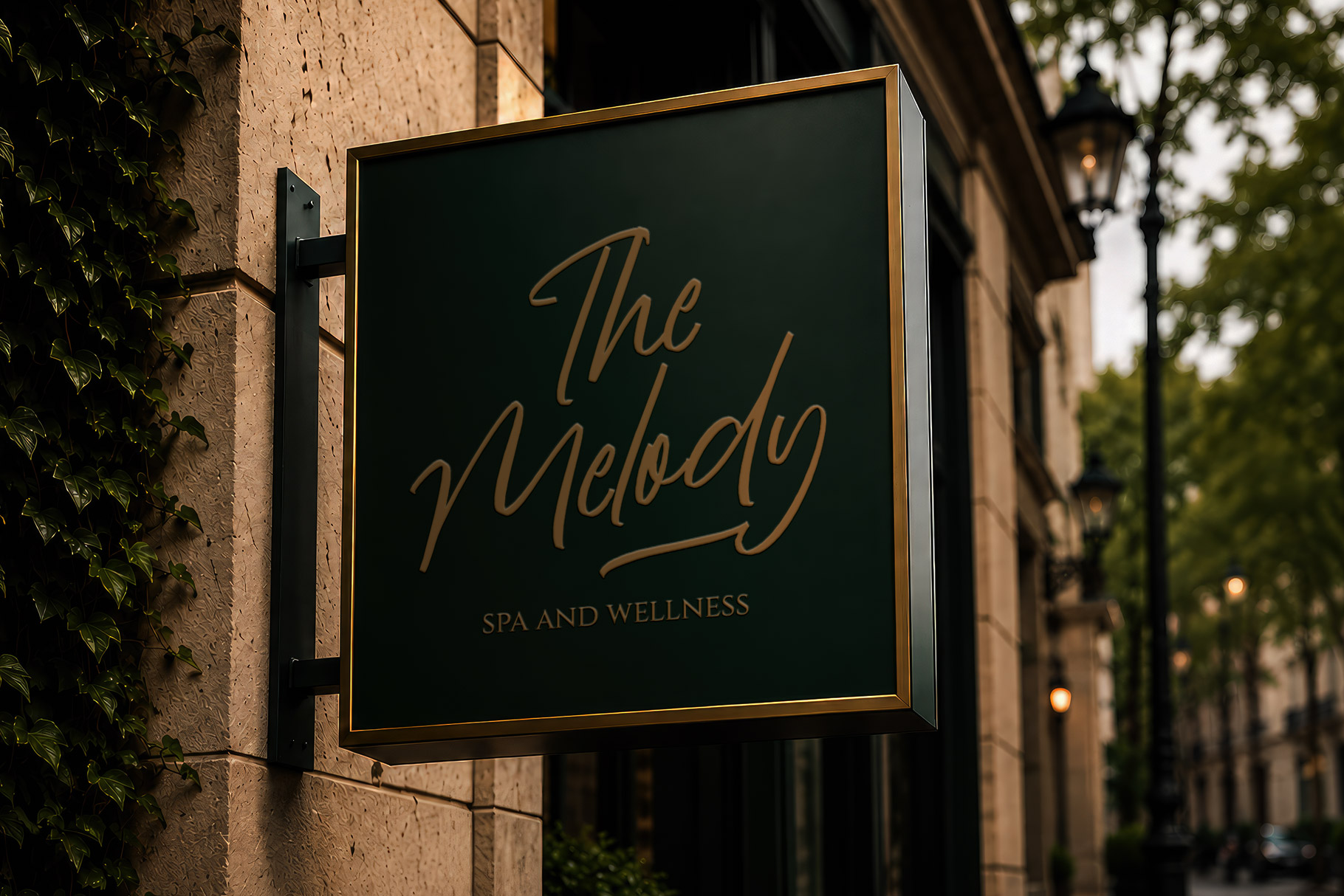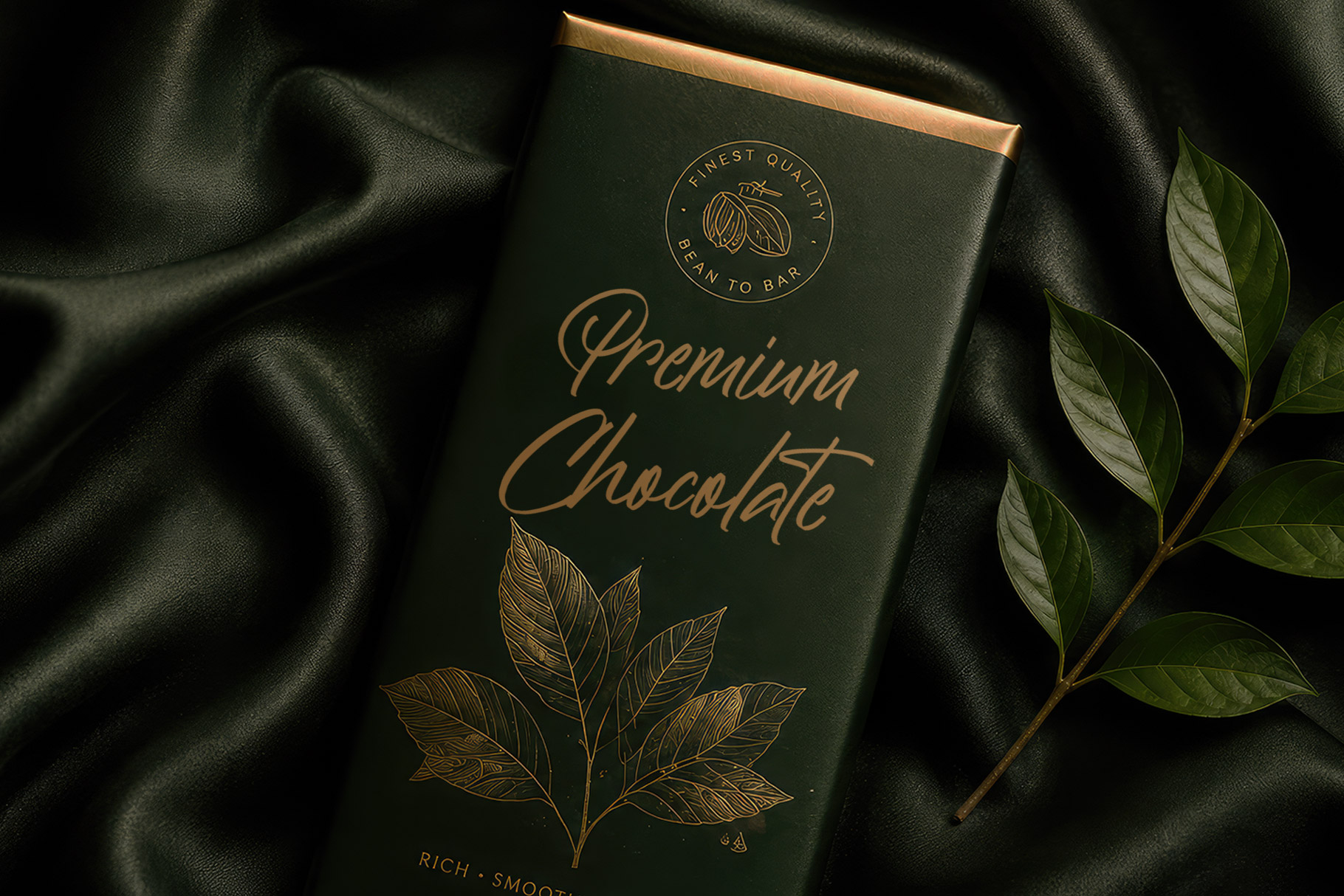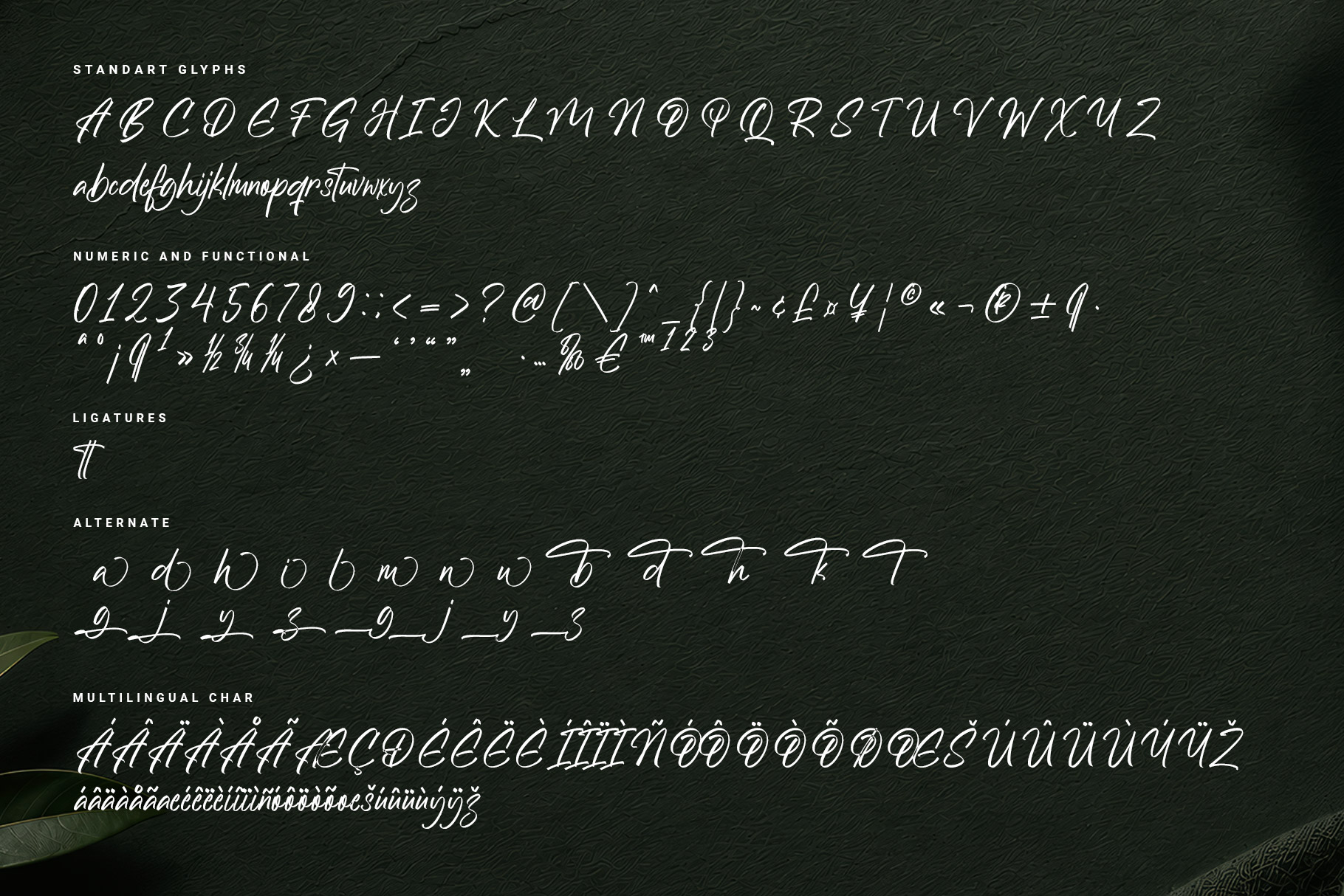
Asenthia is a graceful handwritten script font that blends modern elegance with effortless personality. Asenthia a perfectly choice for any creative endeavor, creating, modern, lifestyle design such as logotype, title, cover, branding, invitations, wedding designs, display and magazine, social media posts, advertisements, printed quotes, product packaging, corporate brand, product designs, labels, photography, watermarks, special events and any other project with elegant touch.
Asenthia Handwritten Font